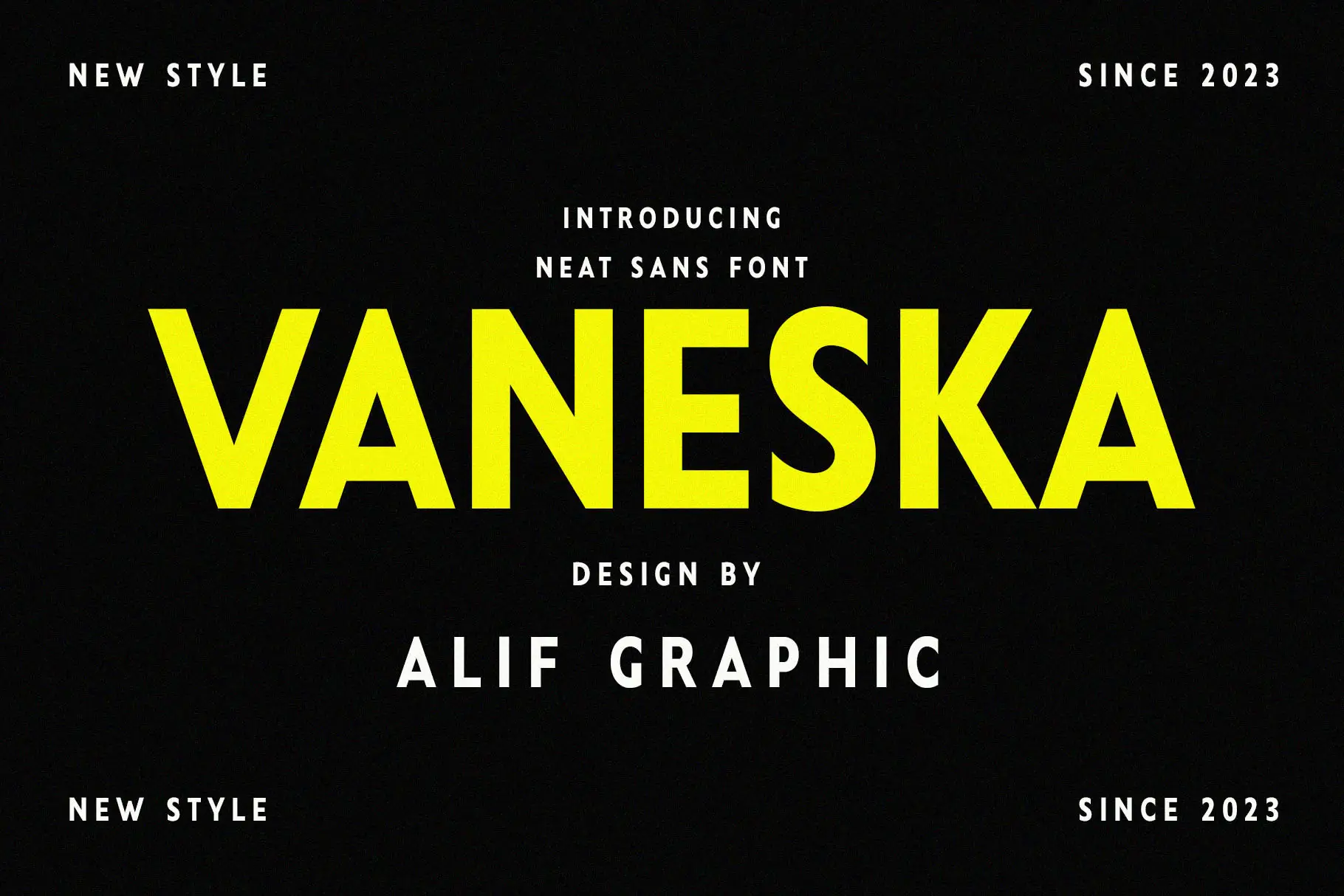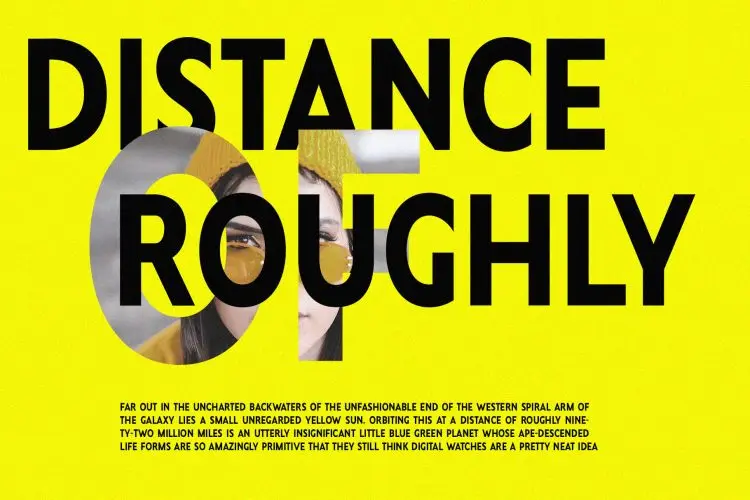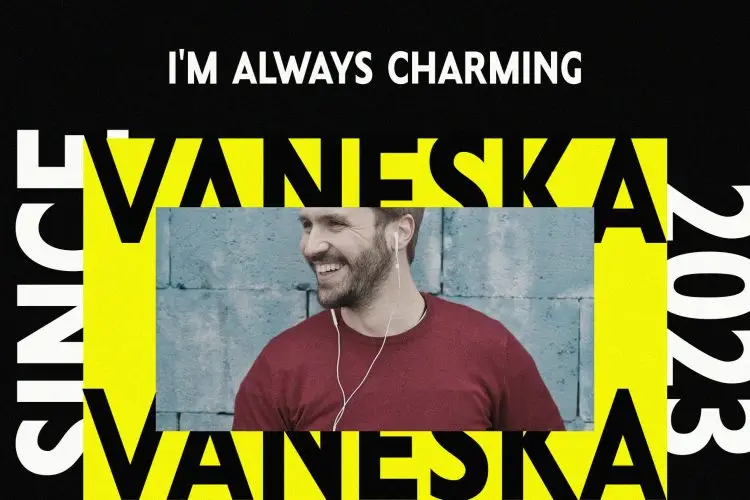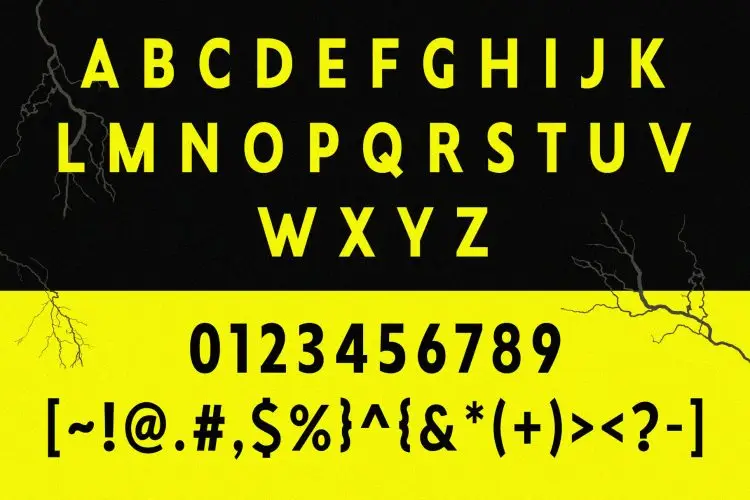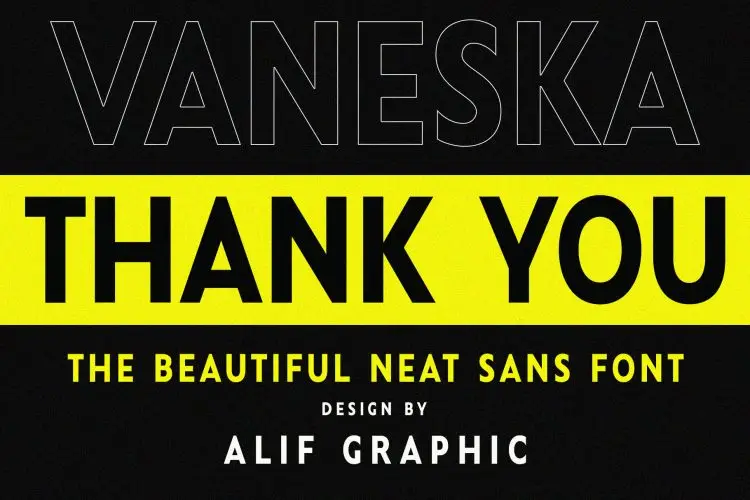
Modern Sans Typeface - Vaneska
Vaneska
Introducing Vaneska, a modern sans typeface that radiates elegance and sophistication. With its clean and refined letterforms, Vaneska is the ideal choice for luxury branding, editorial designs, and fashion-focused projects. The balanced proportions and subtle curves of this font create a harmonious and versatile typeface, making it perfect for both display and body text. Whether you’re working on websites, branding materials, or fashion-related designs, Vaneska adds timeless charm and contemporary appeal to your creative projects.
Ideal for:
• Luxury Branding
• Website Designs
• Advertising Campaigns
• Social Media Designs
• Personal Branding
• Fashion-Oriented Projects
• Industry or Factory
Features:
• Ready for Creative Expression
• Immaculately Crafted Letters
Vaneska is a modern sans typeface that combines elegance and sophistication. Perfect for luxury branding, fashion, and web designs, it brings timeless charm and modern appeal to any project.